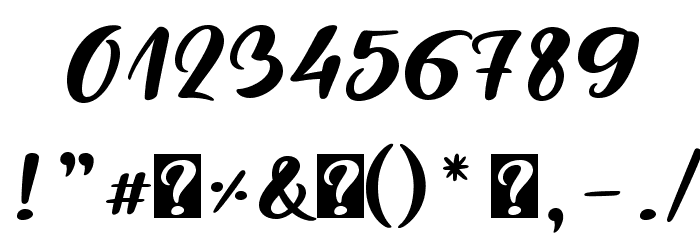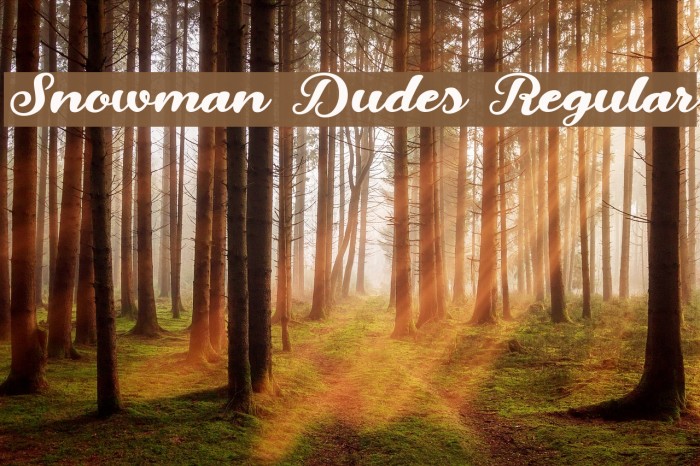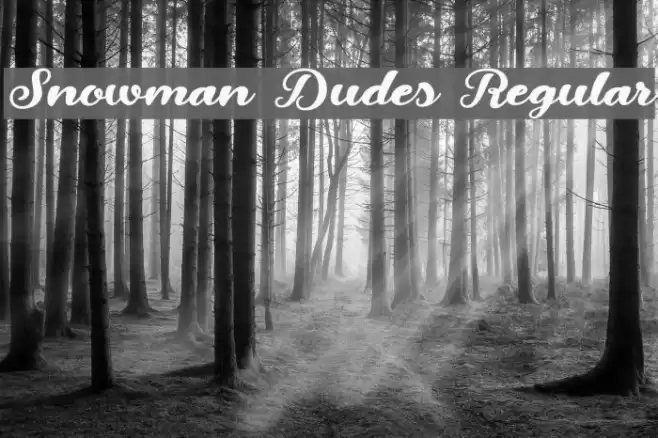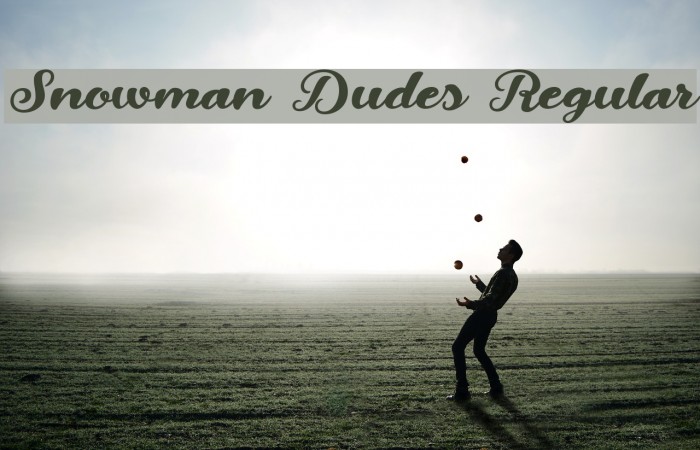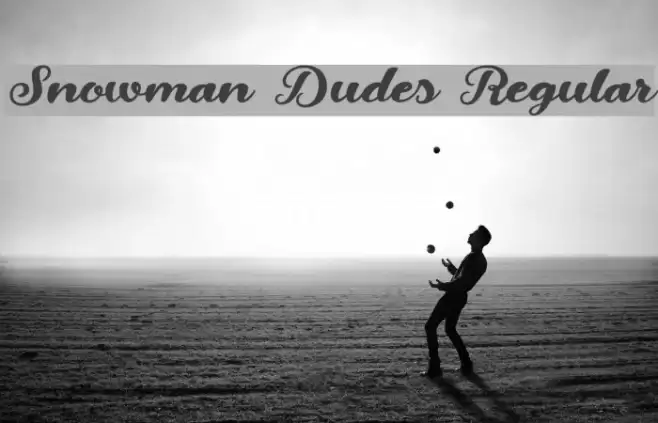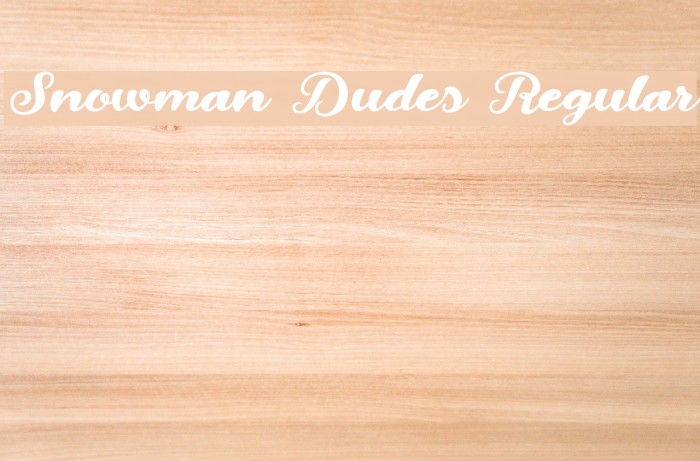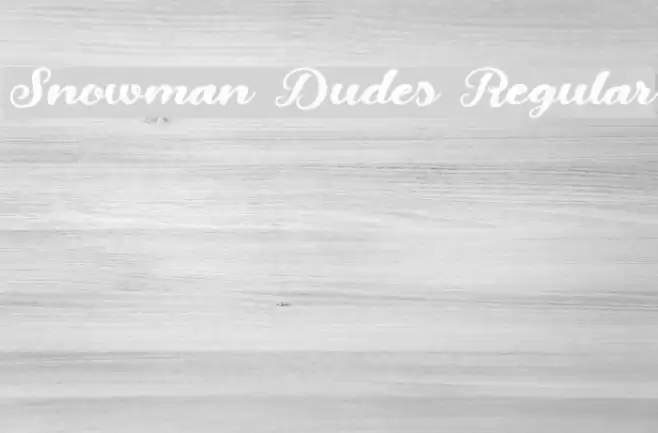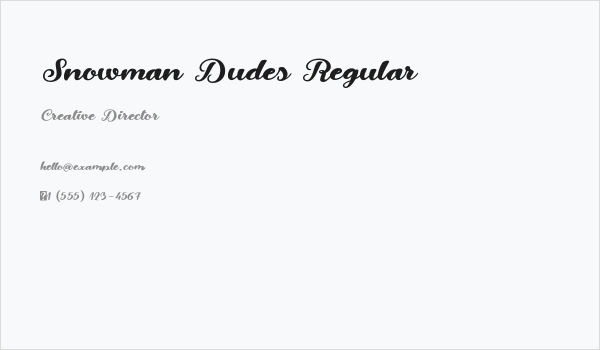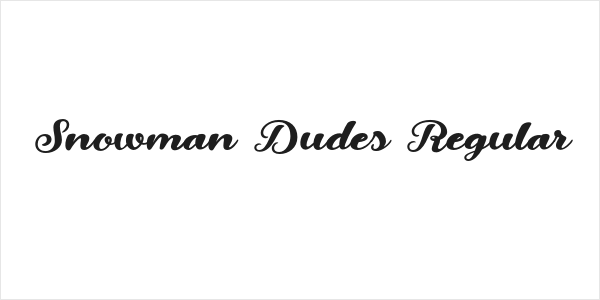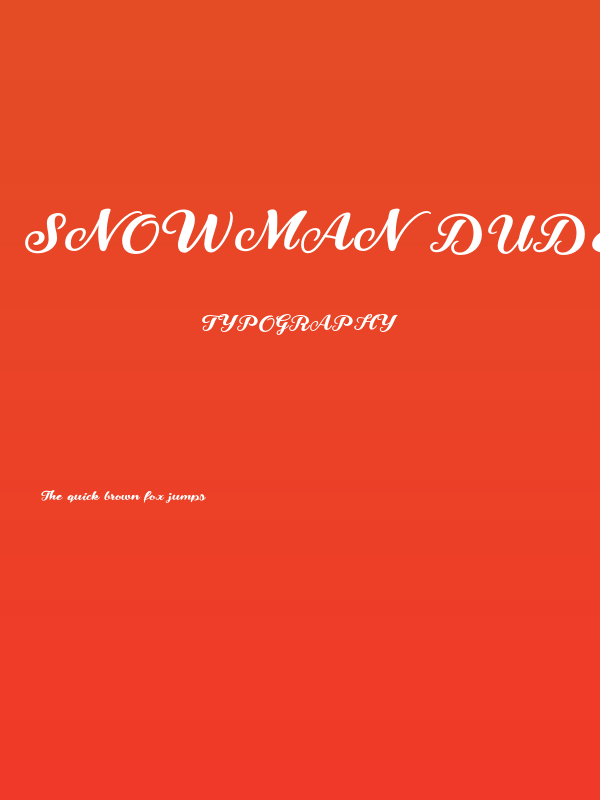
Snowman Dudes Regular Font
Snowman Dudes Regular Description
This font features a playful and whimsical script style, characterized by its flowing, cursive letterforms. The uppercase letters exhibit elegant loops and swashes, while the lowercase letters maintain a smooth, connected appearance. The numerals are consistent with the script style, offering a cohesive look across all characters. Special characters are designed with the same fluidity, enhancing the overall aesthetic. The font's bold strokes and rounded edges contribute to its friendly and approachable feel, making it suitable for a variety of creative applications.
| Proposed Projects | Ideal for greeting cards, invitations, playful branding, and decorative signage. |